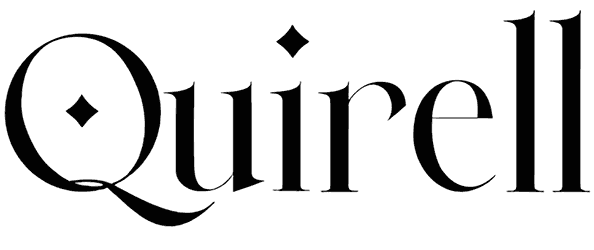
Quirell Font
Here we are again to offer you a classic gold font, Quirell, to make use of it in your posters, flyers, billboards, business cards, and logos to take your artwork to a higher level. In addition to the fact that it carries a sense of power, vintage, respect, confidence, and professionalism, it will never become an old-fashioned font.